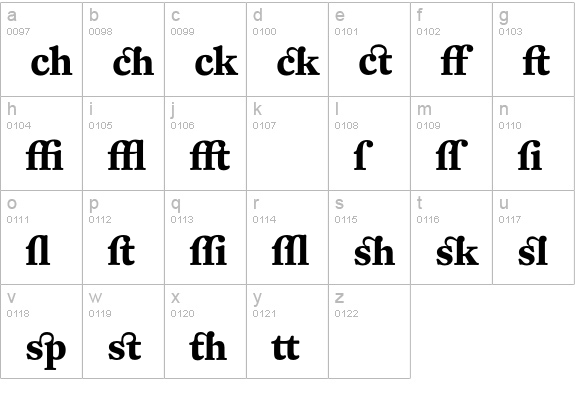
DTLFleischmannTAlternate-Bold is a strong, high-contrast variant in the DTLFleischmannTAlternate typeface family \xE2\x80\x94 well suited to headlines, attention-grabbing titles, and strong calls-to-action.
DTLFleischmannTAlternate-Bold is a bold and striking font that exudes modernity and sophistication. With its strong lines and geometric shapes, this font is perfect for making a bold statement in your design projects. Whether you're creating eye-catching headlines or attention-grabbing posters, DTLFleischmannTAlternate-Bold is sure to make an impact. The best part is that this font is available for free download at FontsMarket.com. So you can add this stylish and versatile font to your collection without breaking the bank. Don't miss out on the opportunity to elevate your designs with DTLFleischmannTAlternate-Bold's unique and compelling aesthetic. Download it today and let your creativity shine!